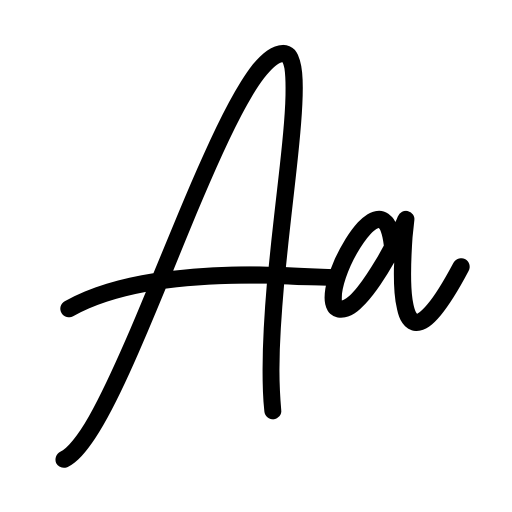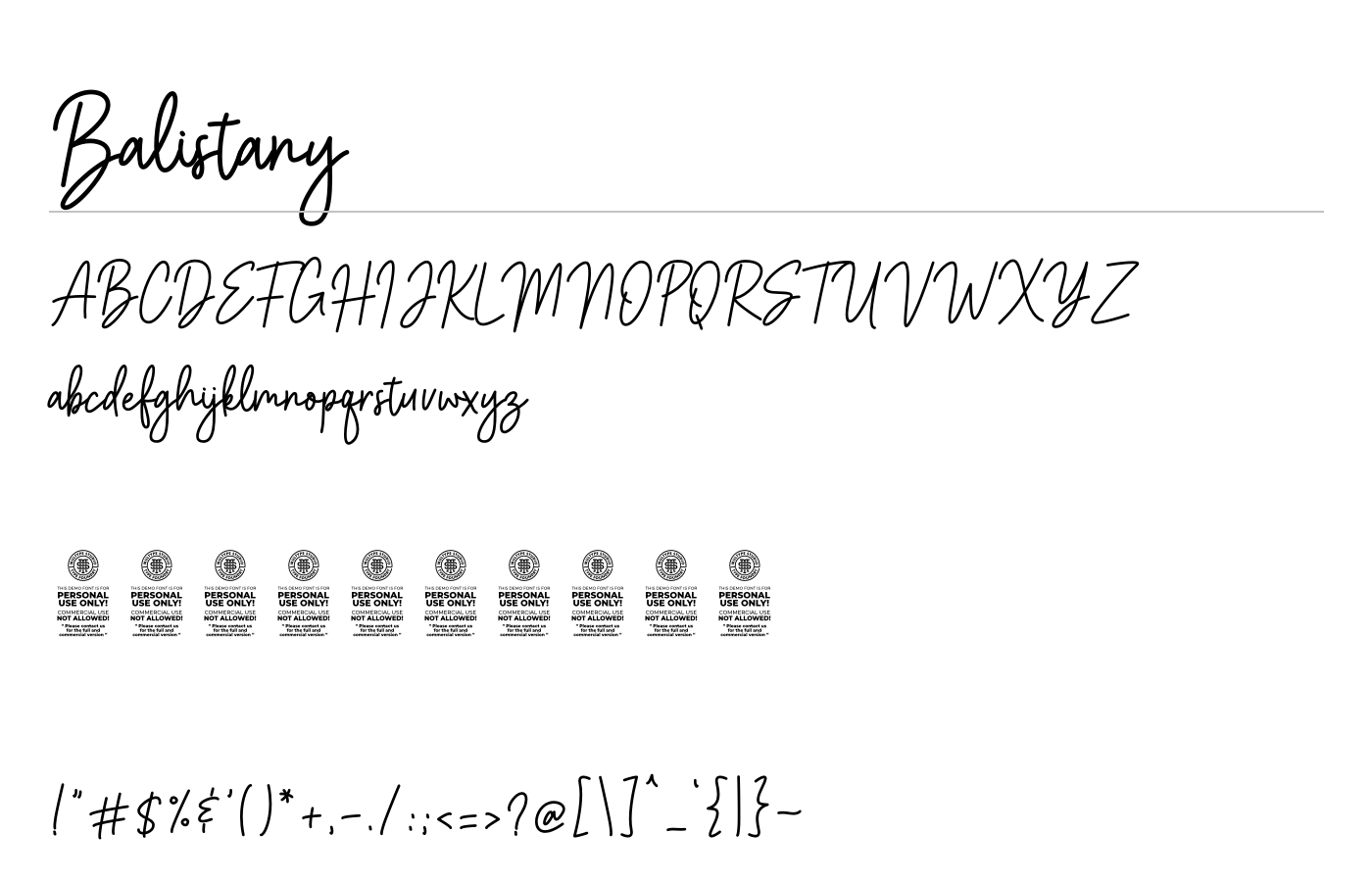
Balistany is a stylish handwritten script font with a casual, flowing charm. Its slender strokes and slightly tall x-height give it an elegant yet approachable feel, perfect for adding a personal and creative touch. This font works beautifully for branding, invitations, and social media where a warm, friendly style is desired.
Balistany Font
About Balistany Font
| Designer | Mulia Yanto |